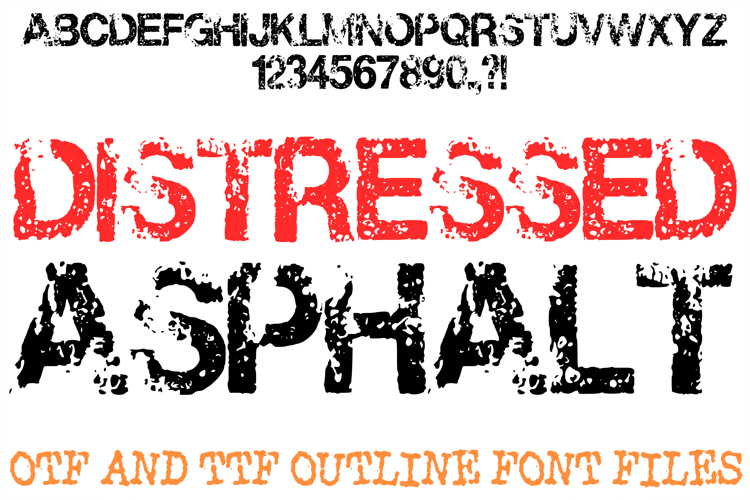
The Distressed Asphalt Font is a rugged, industrial display typeface that captures the raw, weathered energy of real-world road markings. Each character is meticulously designed to reflect the heavy erosion of white road paint, complete with the visible textures of embedded gravel and dark aggregate stones. It is the ultimate choice for designers working on urban streetwear, heavy machinery branding, construction signage, and high-impact digital art that requires a grounded, "built-to-last" aesthetic.
Featuring a highly distressed silhouette and high-contrast textures, these characters provide a powerful sense of permanence and grit. Whether you are creating a logo for an industrial firm or designing a unique apparel line, the Distressed Asphalt Font delivers an authentic, artisan look that turns every word into a piece of the urban landscape.
Authentic Urban Textures: Every letter (A–Z) and number (0–9) mimics the organic wear and tear found on city streets, featuring realistic paint chips and stone exposure.
Heavy Industrial Weight: The bold, thick silhouettes ensure maximum legibility for headlines, posters, and large-scale signage.
Highly Detailed Aggregate: The embedded gravel details provide a tactile, 3D feel to the characters, making them pop against both light and dark backgrounds.